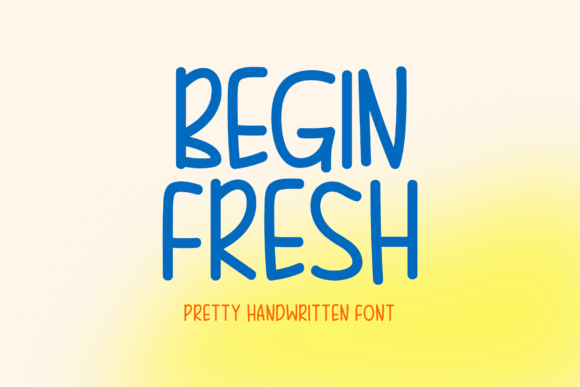
Unlocking the Power of Handwritten Charm: Begin Fresh Font
Remember that moment when you stumbled upon the perfect font that instantly transformed your design? It’s like stumbling upon a hidden treasure, and you can’t help but feel a rush of excitement and creativity. That’s exactly what happens when you discover the Begin Fresh Font – a charming handwritten font that effortlessly combines elegance with a playful, modern touch.
The Begin Fresh Font is designed to bring a personal and creative feel to your projects, making it an excellent choice for a wide variety of applications, from stationery and logos to apparel and digital graphics. Its flowing strokes and natural style make it a valuable addition to any designer’s toolkit, allowing you to add warmth and character to both print and online designs.
Begin Fresh Font Key Features
- Unique Characteristics: This font features a clean and modern design, with a friendly feel and a wide range of weights and styles, making it suitable for various design projects, including logos, headings, and body text.
Designer Review: Begin Fresh Font
Overall, I’m quite pleased with Begin Fresh Font. It’s a clean, modern sans-serif typeface that’s perfect for creating a sense of freshness and openness in designs. ✨
One of the standout features of Begin Fresh is its exceptional legibility, even at smaller font sizes. This makes it an ideal choice for body text, as it ensures that your content is easy to read and understand. ✨
Another benefit of Begin Fresh is its versatility. It works well in a variety of contexts, from digital interfaces to print materials, and can be used in a range of styles, from minimalist to bold. ✨
- Begin Fresh Font may not be the most expressive or emotive typeface, which could be a limitation for designers looking to create a more dramatic or attention-grabbing effect. ⚠️
- The font’s simplicity can also make it feel somewhat generic or unoriginal in certain contexts. ⚠️
In terms of overall impression, Begin Fresh Font is a solid, dependable choice for designers who value clarity and readability. While it may not be the most exciting or innovative typeface, it’s a reliable workhorse that gets the job done.
Getting the Most Out of the Begin Fresh Font
Use the Begin Fresh Font for titles, headings, and body text in modern designs.
Pair the font with a clean and minimal design aesthetic for maximum impact.
The Begin Fresh Font is ideal for:
Modern websites and web applications.
Corporate branding and identity.
Marketing materials and social media graphics.
Business cards and resumes.
Alternatives to Begin Fresh Font
Lato is a modern sans-serif font that is highly legible and versatile. It is suitable for a wide range of designs, including corporate, web, and mobile applications. Lato is more geometric and clean than Begin Fresh Font, making it ideal for modern and minimalist designs.
Open Sans is a popular sans-serif font that is highly readable and works well in both print and digital media. It is a great choice for designs that require a clean and neutral aesthetic. Compared to Begin Fresh Font, Open Sans is more formal and professional, making it suitable for corporate and business designs.